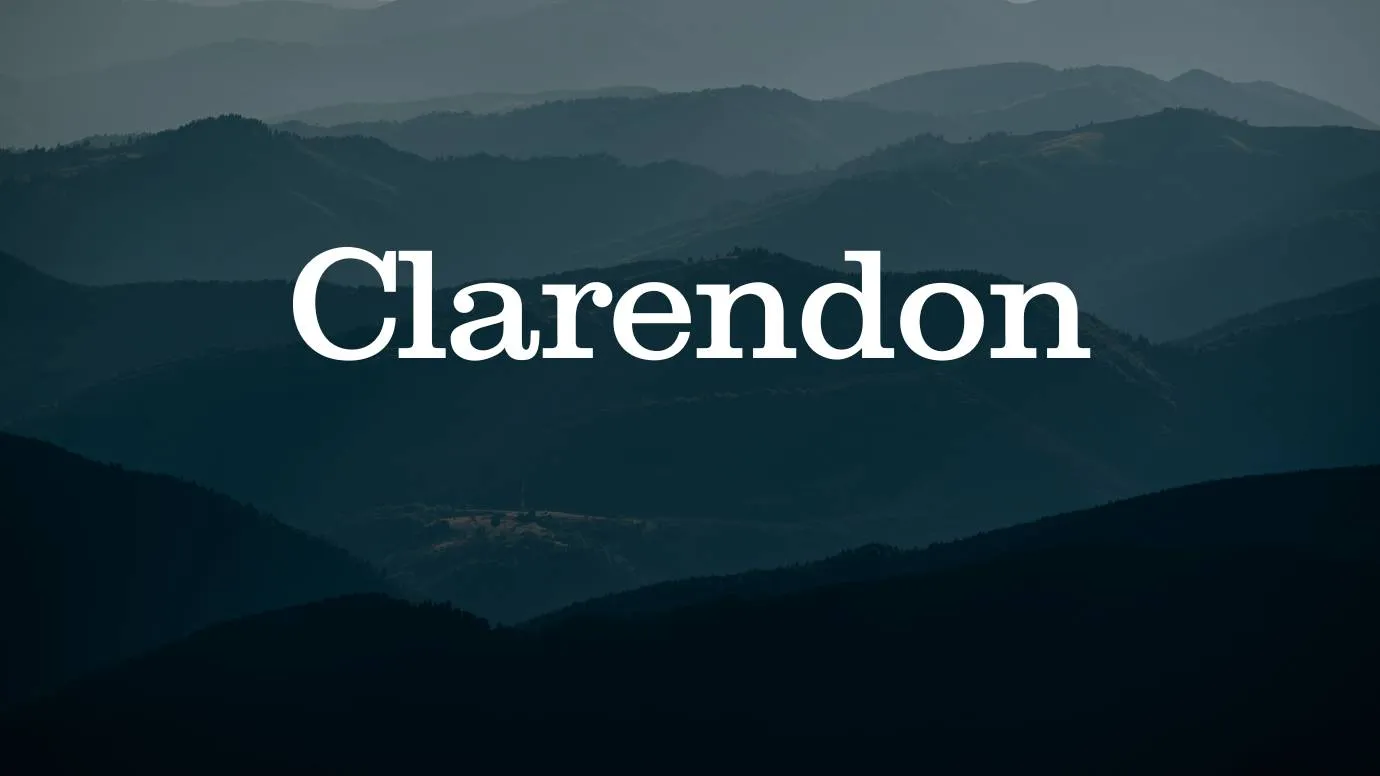
Clarendon Font Family has a clean and bold font appearance. This typeface belongs to the Slab Serif font family. You can download this font in OTF and TTF file versions. In the 19th century, it was considered the modern font and famous for body text.
The bold and italic weights of this font are mostly used and the styling of this typeface is considered as the Millenium designs as this is one of the best-designed typefaces that you can use with asees font and its styles.
Clarendon Font
DesignerRobert Besley
TypeSlab Serif